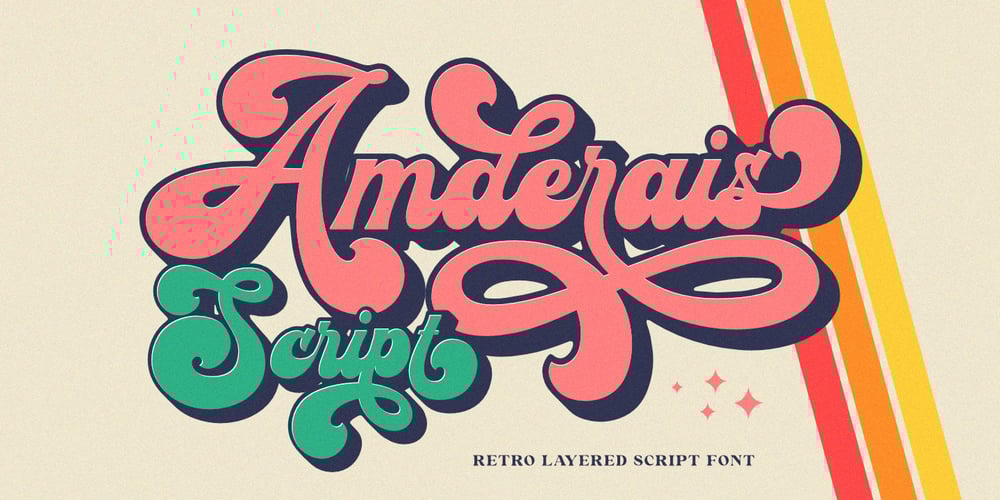
Amderais Font Family was designed by Saiful Anwar and published by Sealoung. Amderais contains 2 styles and family package options. Give your typographic designs a touch of retro style with Amderais!Amderais is one of our 2022 fonts inspired by the famous retro typographic designs of the late 60s to 70s. This font has an extruded version so you can easily create retro effect fonts. This typeface is very suitable to be applied especially to logos, and various other formal forms such as invitations, labels, logos, magazines, books, greeting/wedding cards, packaging, fashion, make-up, stationery, novels, and labels or other types of fonts. advertising purposes.Feature :- upper & lower case- numbers and punctuation- multilingual- ligature- alternative- swashes- PUA encodedWe highly recommend using a program that supports the OpenType feature and the Glyphs pane like many Adobe and Corel Draw applications, so that you can view and access all variations of Glyphs.